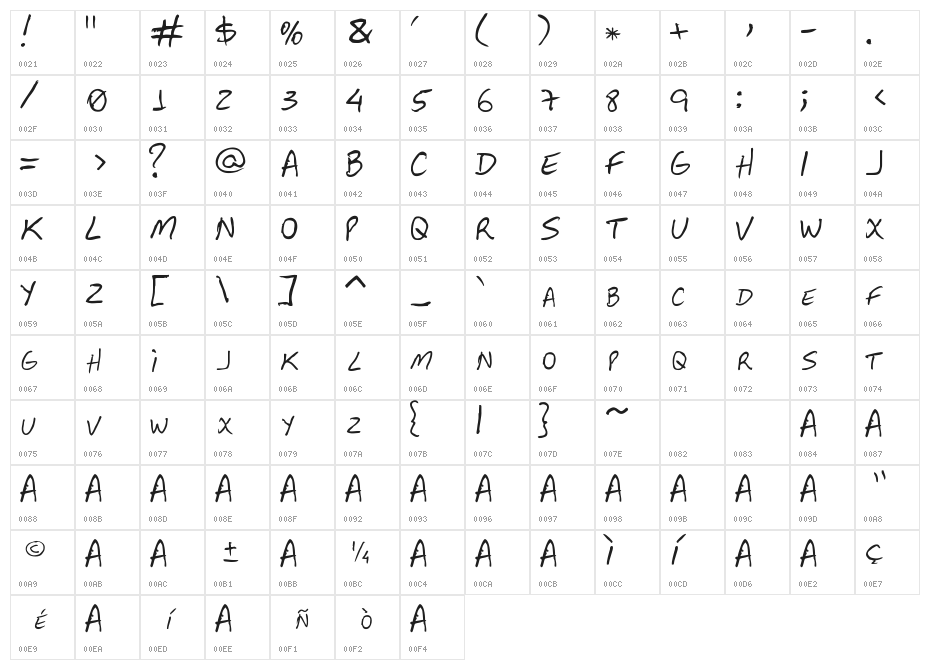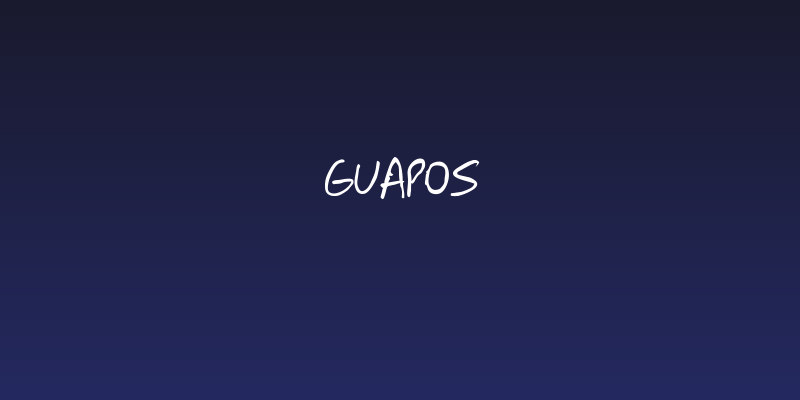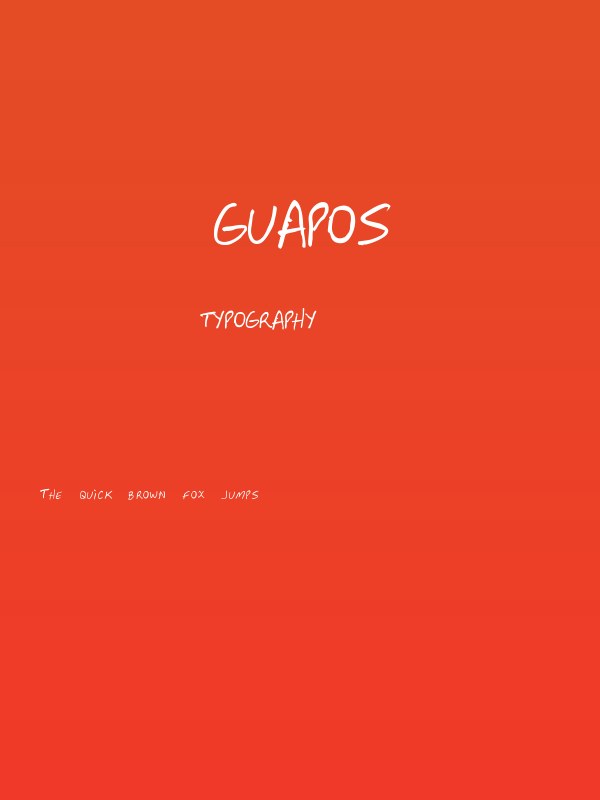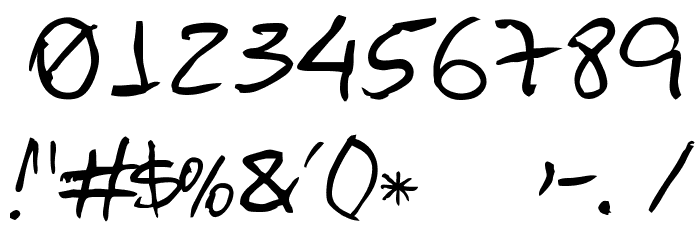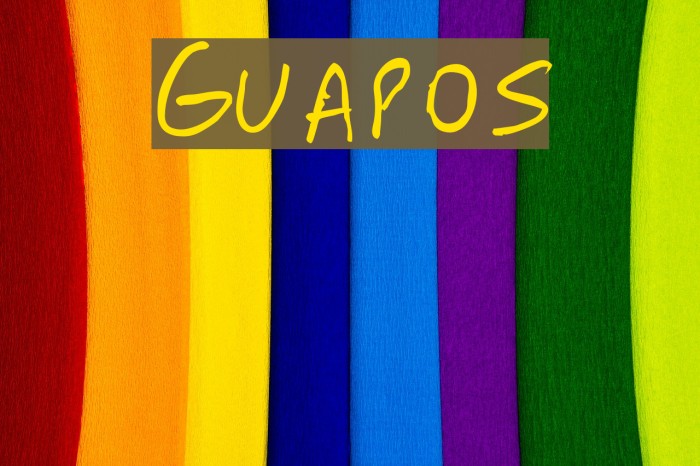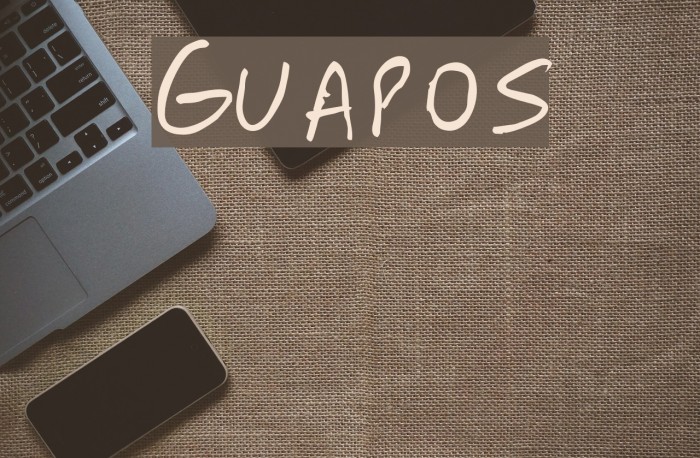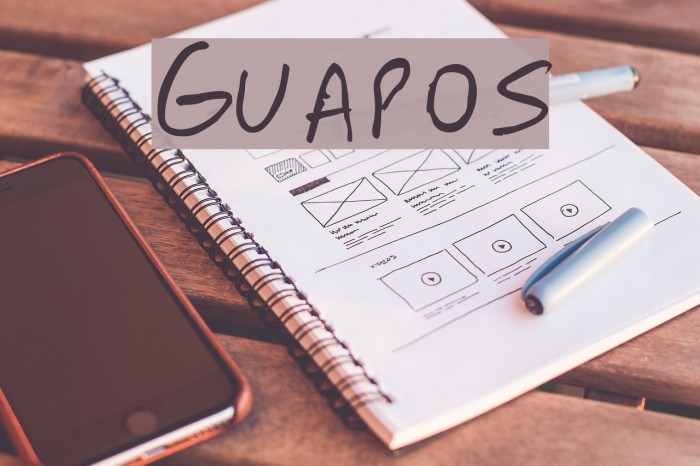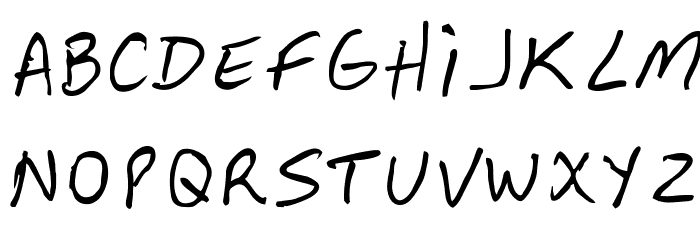
Guapos Font
Guapos Description
This font exudes a casual and handwritten style, characterized by its fluid and slightly irregular strokes that mimic natural handwriting. The uppercase and lowercase letters maintain a consistent flow, with a slight slant that adds to its informal charm. The numerals and special characters follow the same handwritten aesthetic, ensuring a cohesive look across all characters. The strokes vary in thickness, providing a medium contrast that enhances readability while maintaining a relaxed appearance. This font is ideal for projects that require a personal touch, such as greeting cards, invitations, or creative branding.
| Overall Style | Casual |
| Use Case | Creative branding, personal notes, invitations. |
| Proposed Projects | Greeting cards, invitations, creative branding, personal notes. |